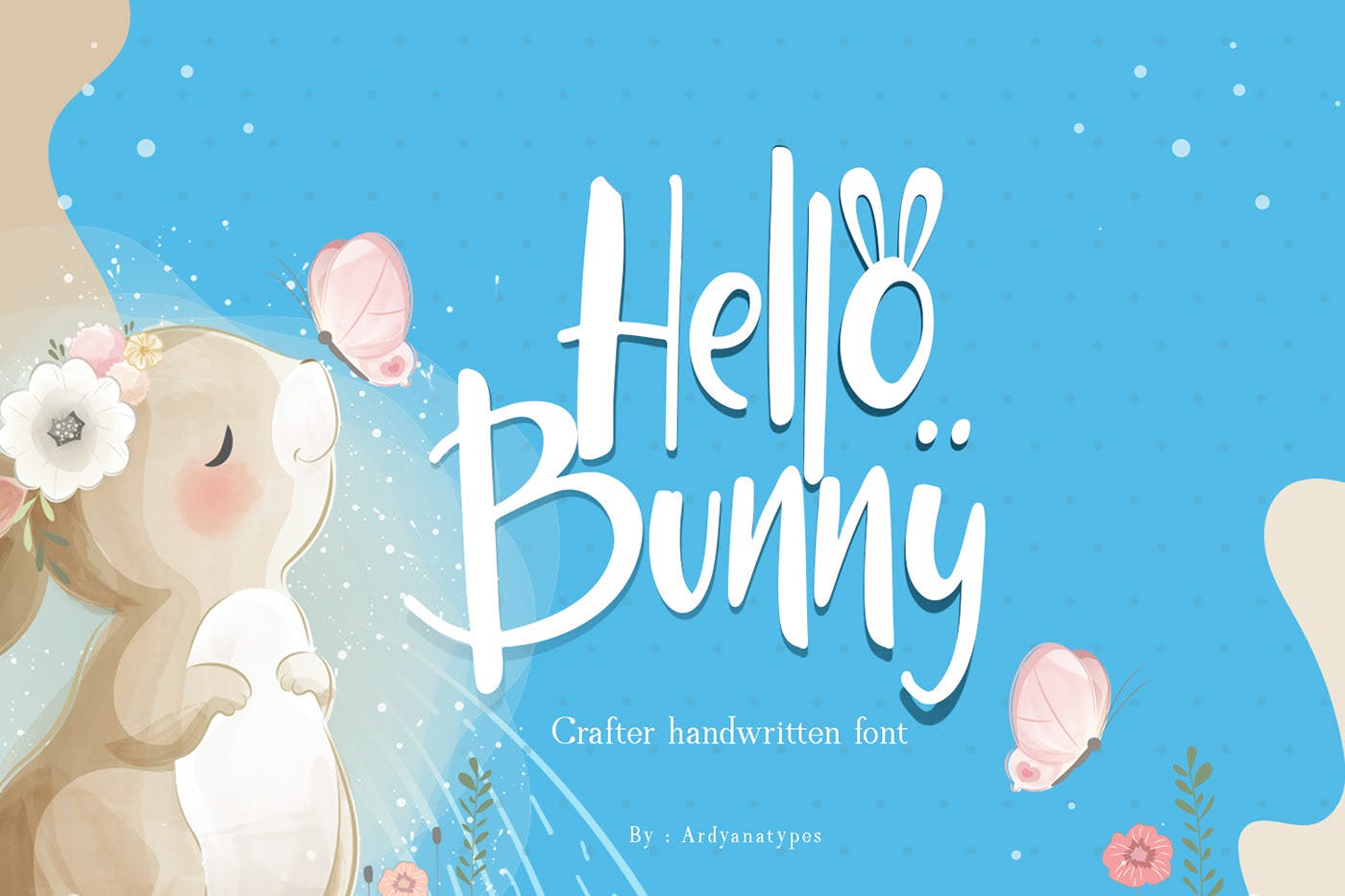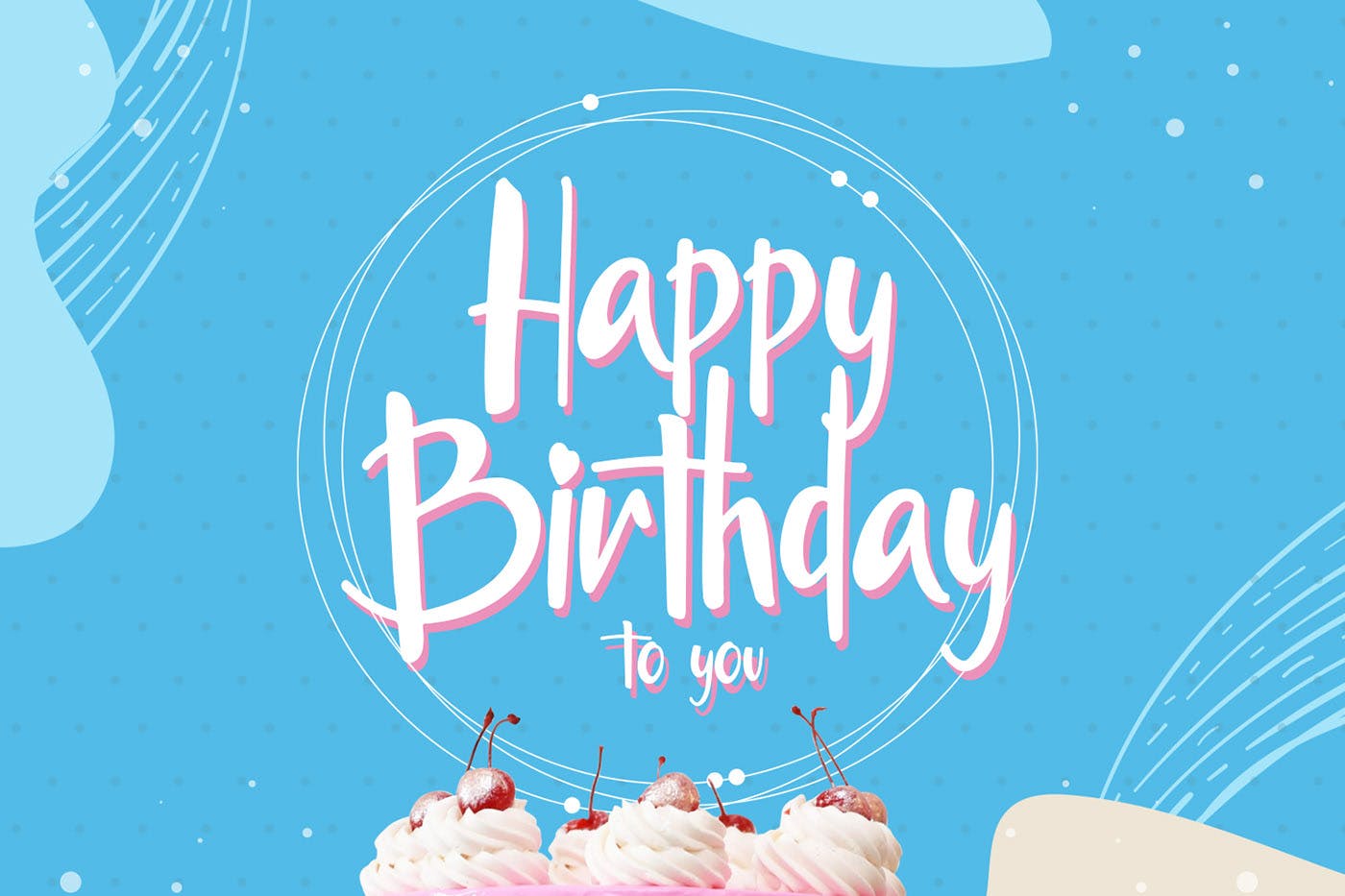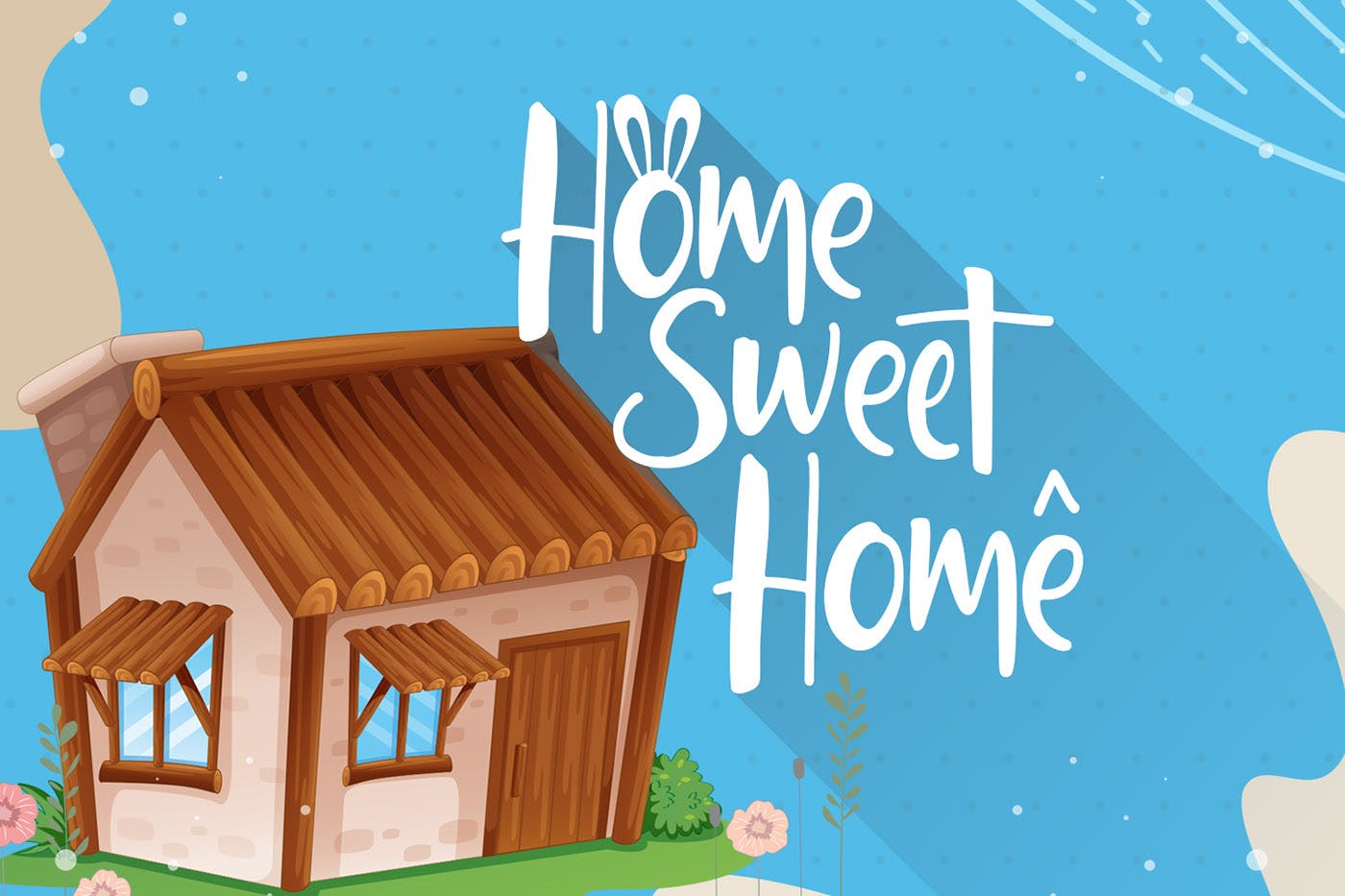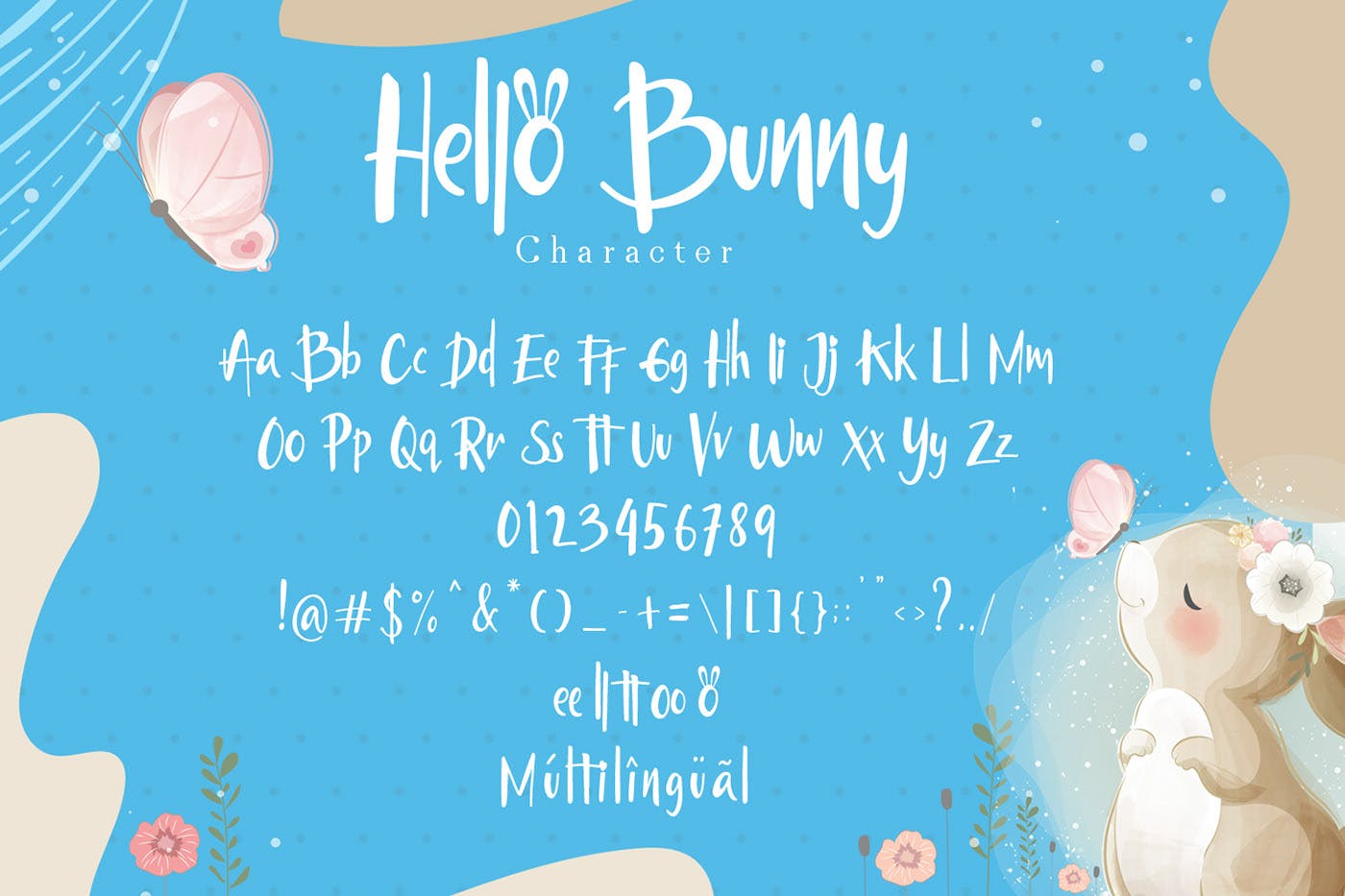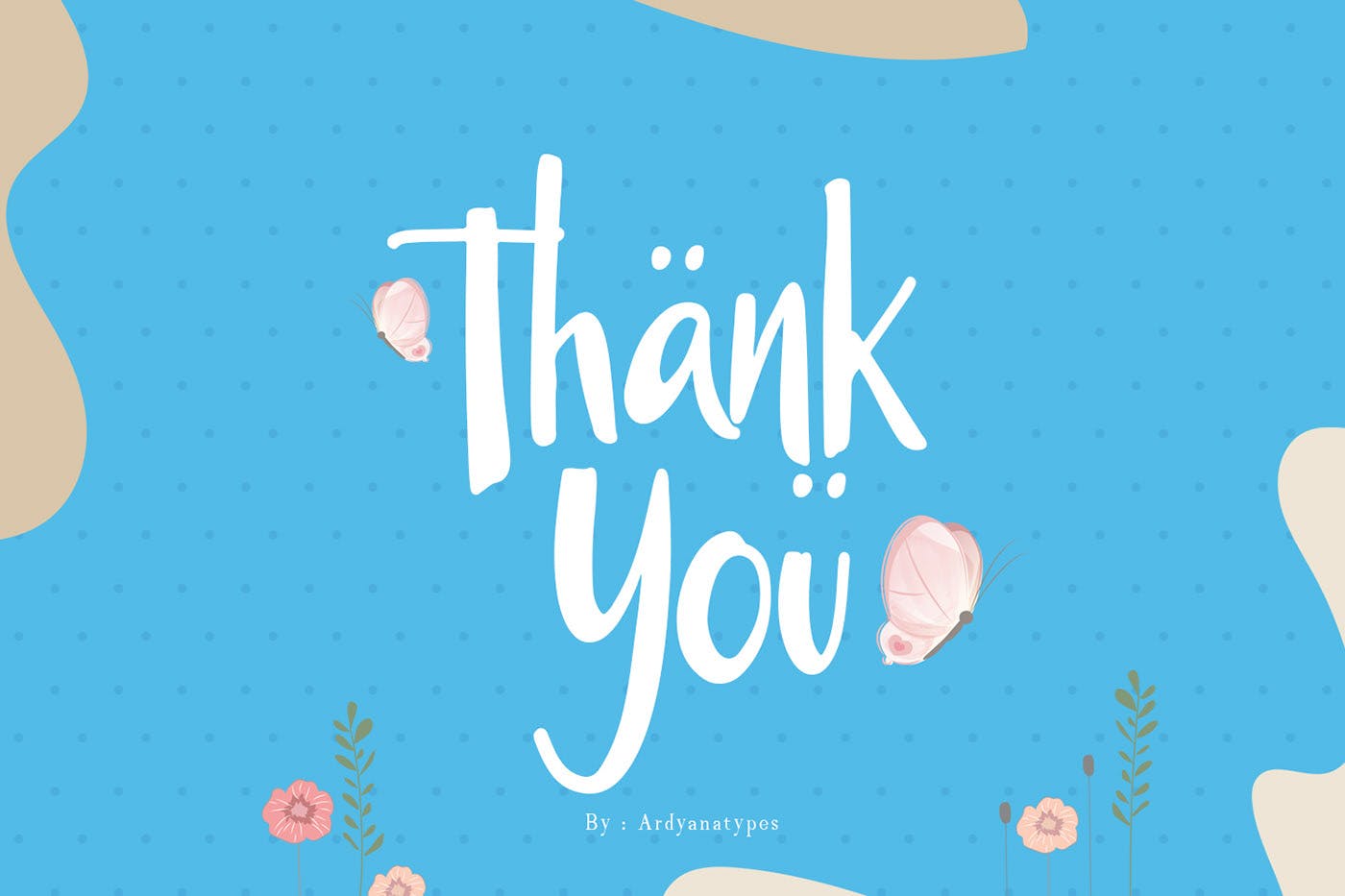
Free Hello Bunny Display Font
Free Hello Bunny Display Font is a cute font that will fit to your works. It is coming with a handwriting style that will make all your works look playful and sweet. This font is also available for a multilingual feature, presents with the TTF format file for this freebie that you can install on your devices. This free font is very good for your projects such as book covers, banners, gift cards, flyers, invitations, and more. So, it is available for a 100% free license, but you only get the demo version, if you want to get more advantages, make sure you buy the premium version.